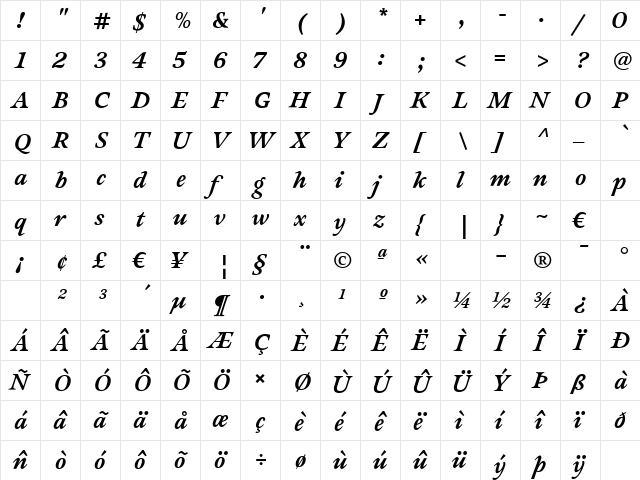
Sovereign-ExtraBoldItalic Regular
Design Context for Sovereign-ExtraBoldItalic Typeface
Sovereign-ExtraBoldItalic is a composed and adaptable typeface that performs quietly and consistently across a wide range of design contexts. The slanted form adds forward momentum and visual energy. Its bold stroke weight gives it real presence on the page.